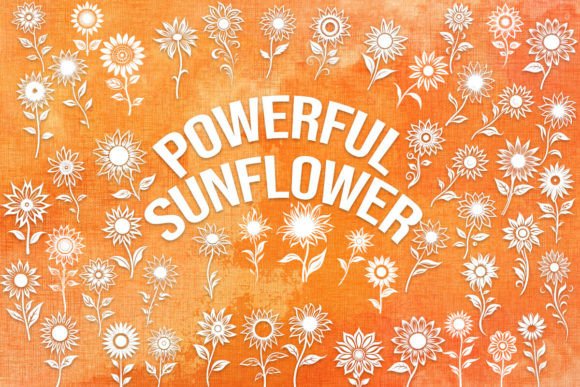
Prepare to be awestruck by the Powerful Sunflower Dingbats Font Family, an extraordinary collection that will illuminate your designs with the radiant brilliance of a thousand suns! Radiate creativity and bask in the splendor of these enchanting dingbats, meticulously crafted to elevate your projects to unparalleled heights.
Step into a world of artistic expression with this exceptional font family, the ultimate solution for adding a touch of whimsy and charm to your designs. Let your creativity bloom as you effortlessly create eye-catching logos, captivating social media posts, and enchanting invitations. Unleash your inner artist and let these remarkable dingbats transform your designs into masterpieces that leave a lasting impression.
These dingbats are more than just fonts; they are gateways to a world of limitless possibilities. Each meticulously designed dingbat captures the essence of nature's artistry, bringing a sense of tranquility and serenity to your projects. Dive into a sea of sunflowers, let their radiant petals inspire your designs, and let your creativity soar to new heights.
Crafted with the utmost precision and attention to detail, the Powerful Sunflower Dingbats Font Family ensures that every dingbat is a work of art. Smooth curves, intricate details, and captivating shapes combine to create a visual symphony that will leave you spellbound. Watch in awe as your designs come to life, exuding an aura of elegance and sophistication that will capture the hearts of all who lay their eyes upon them.